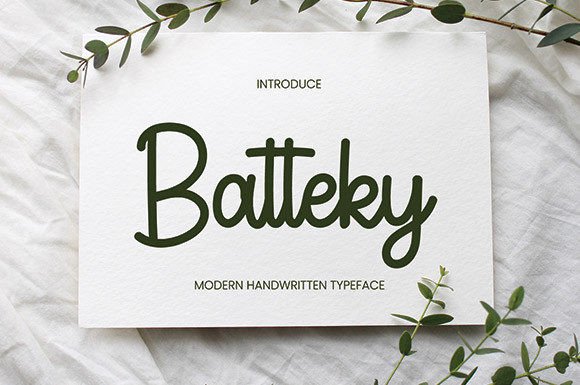
Introducing Batteky Font, a captivating script font family that will transform your creative visions into stunning realities. Dive into a world of elegance and sophistication with Batteky, the font that adds a touch of magic to your designs.
With its graceful curves and flowing lines, Batteky captivates the eye and leaves a lasting impression. Each letter is meticulously crafted to evoke a sense of artistry and charm, making it the perfect choice for projects that demand a personalized touch.
Unleash your creativity with Batteky, a font that knows no bounds. Its versatility shines in a myriad of applications, from enchanting logos and headers to captivating posters and invitations. Let your imagination run wild as you explore the endless possibilities that Batteky offers.
Whether you're a seasoned designer or just starting your creative journey, Batteky is the perfect companion for your projects. Its user-friendly nature makes it accessible to all, allowing you to effortlessly create designs that exude professionalism and creativity.
Step into the world of Batteky and discover a font that will ignite your passion for design. Its timeless beauty and captivating charm will elevate your projects to new heights, leaving an indelible mark on your audience.